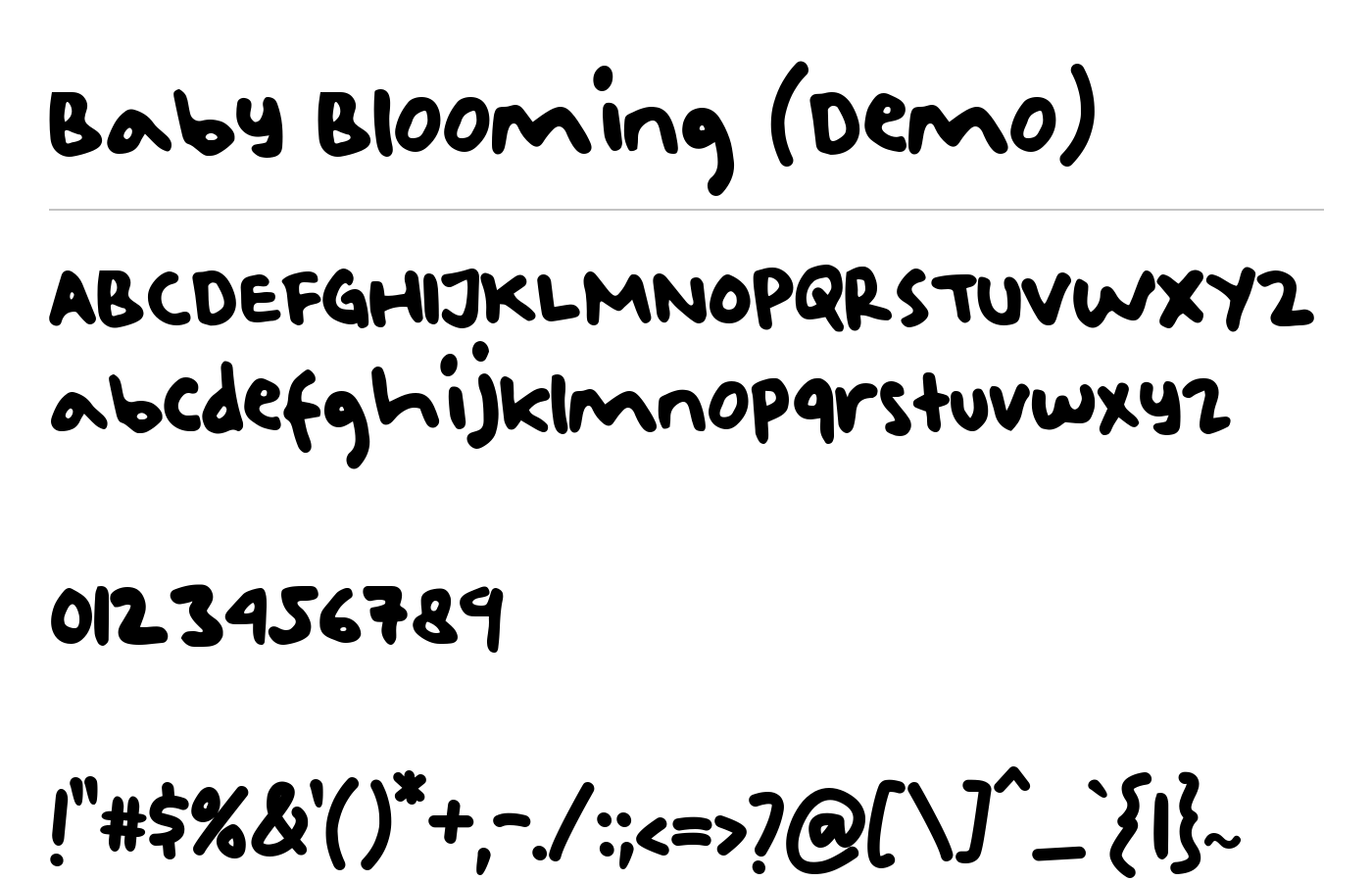
Baby Blooming (Demo) is a playful and casual handwritten font with rounded, thick strokes that give it a friendly, approachable feel. Its irregular shapes and lively character make it perfect for informal designs, such as children's projects, greeting cards, or fun branding that seeks warmth and personality. This font shines in contexts where a relaxed, personal touch is desired.
Baby Blooming (Demo) Font
About Baby Blooming (Demo) Font